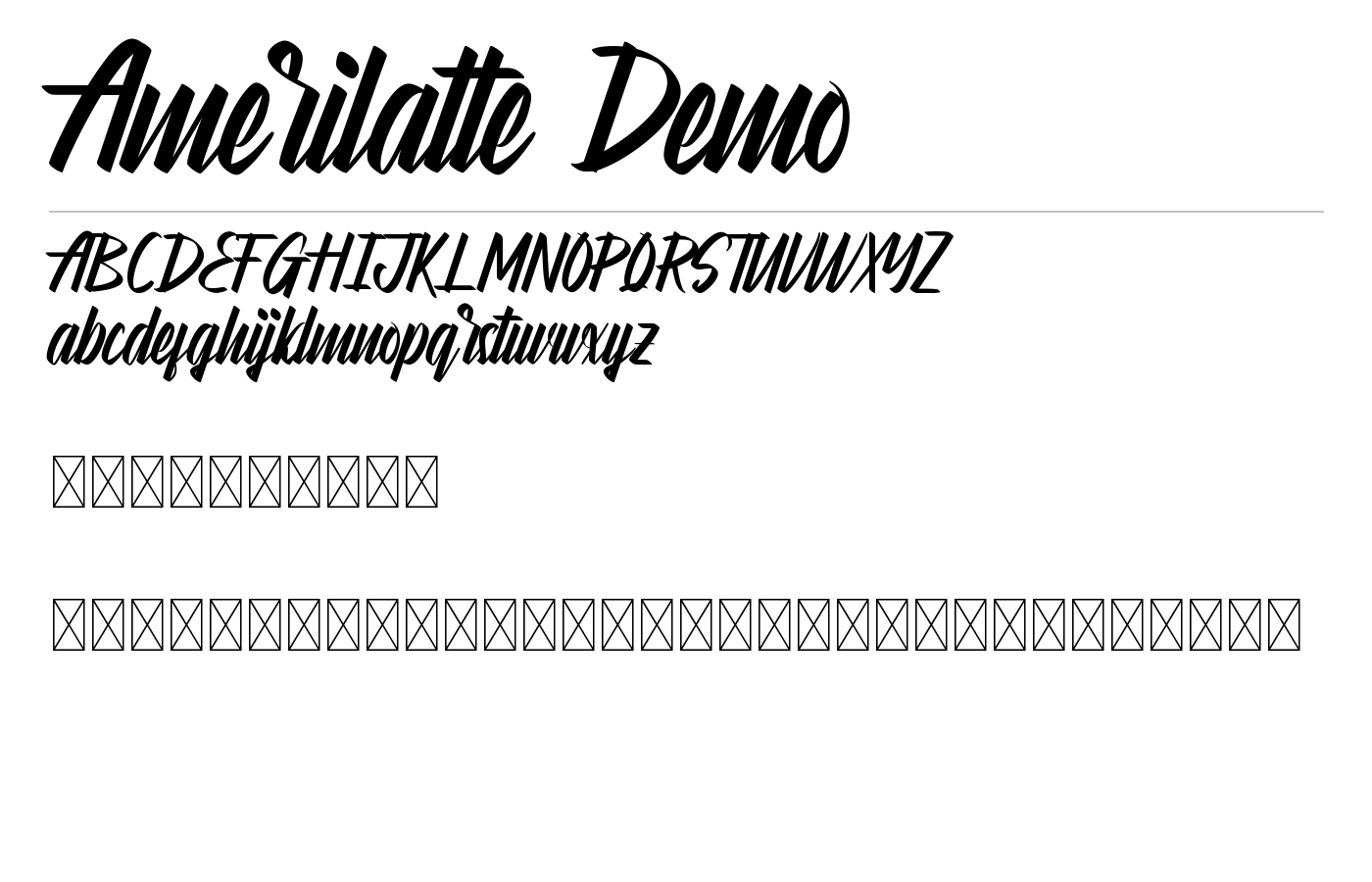
Amerilatte Demo is an energetic script font with a modern flair, featuring tall, narrow letterforms and dynamic, brush-like strokes. Its high contrast and flowing connections give it a stylish, handcrafted feel ideal for eye-catching headlines, branding, and creative projects where a bold yet elegant touch is desired. This font works especially well for fashion, packaging, and editorial design that seeks a lively and sophisticated personality.
Amerilatte Demo Font
About Amerilatte Demo Font